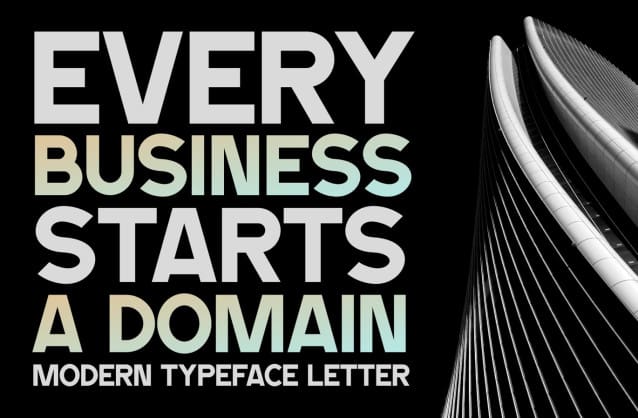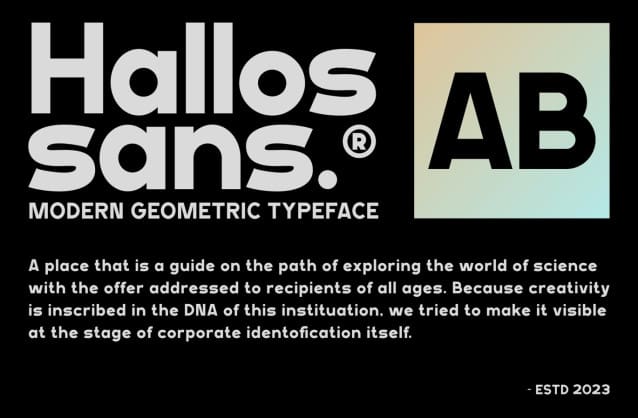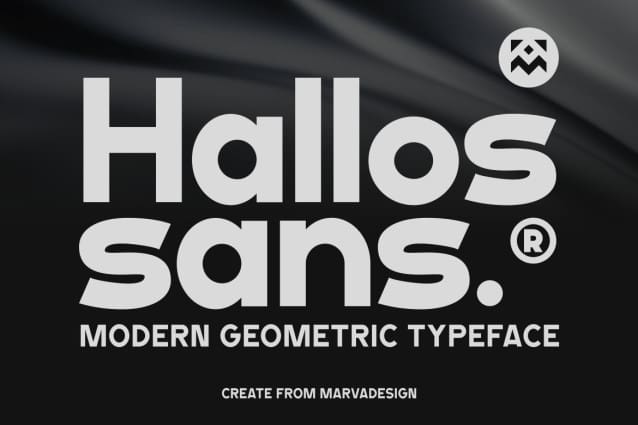
Hallos Sans Font
Hallos Sans Font – Modern Font is a bold and authentic display font. The font is suitable for all branding projects such as Logo, template design, products and many more. It looks outstanding in a wide range of contexts